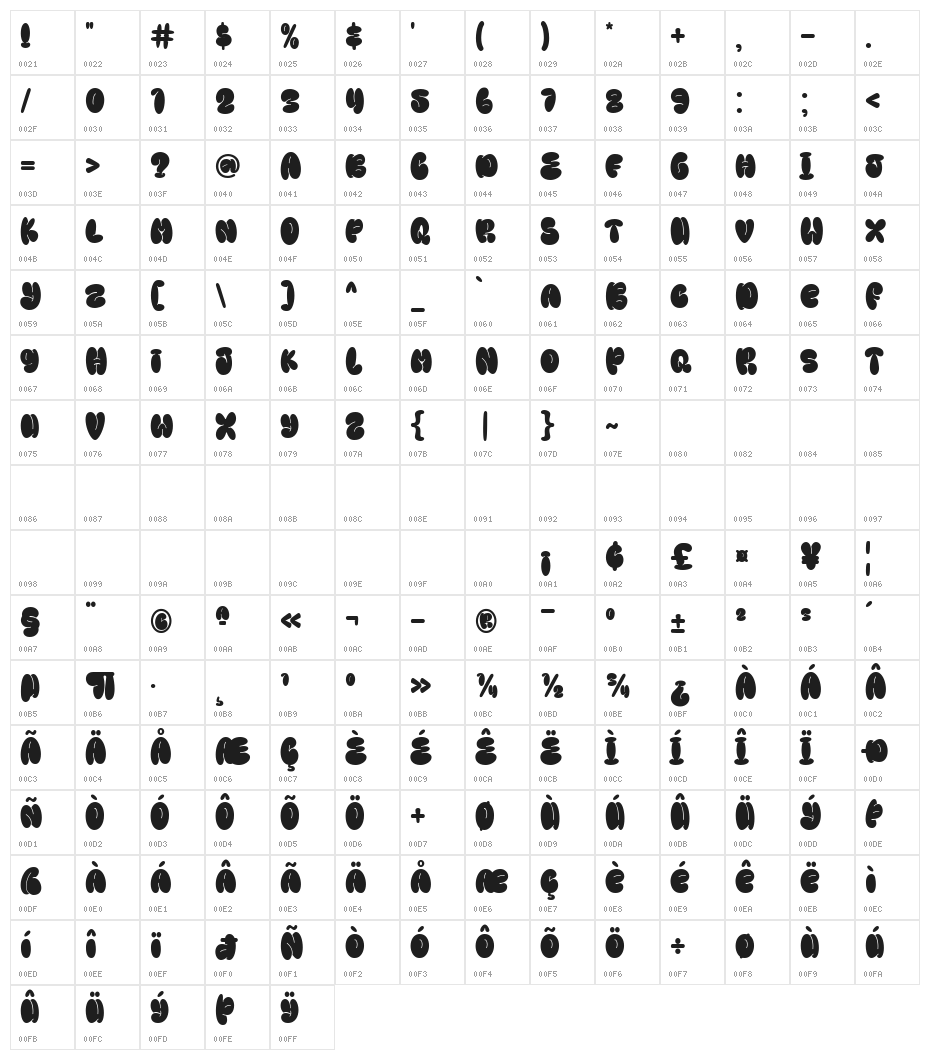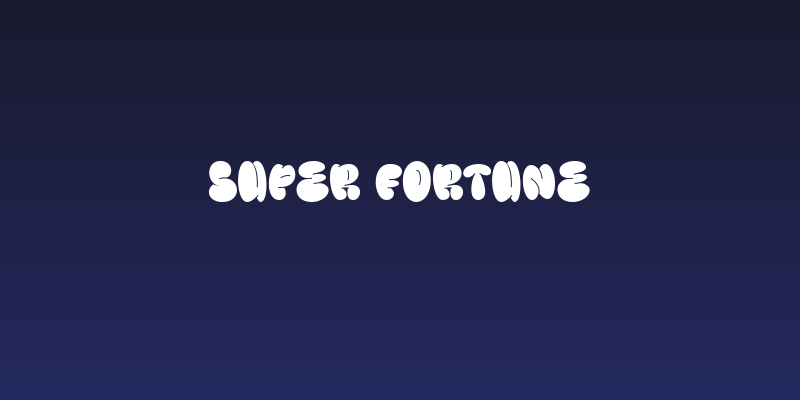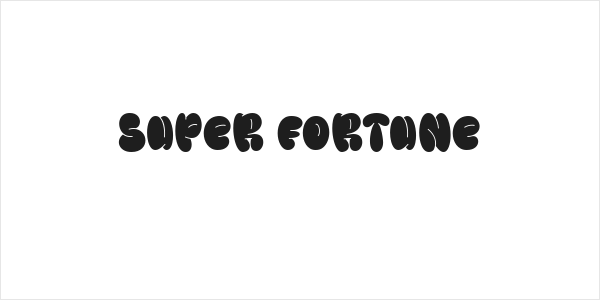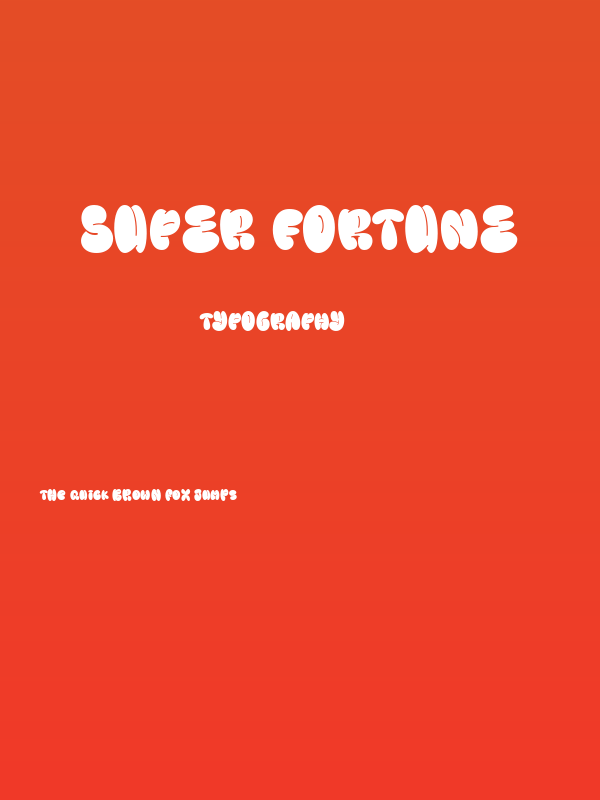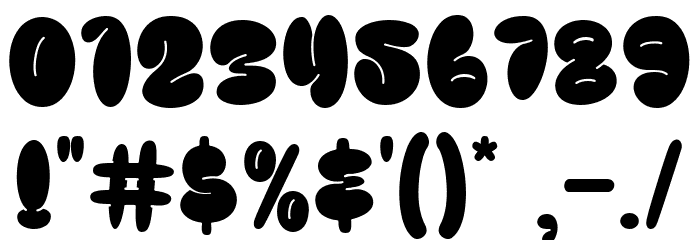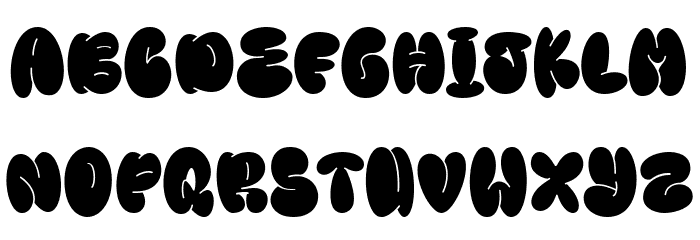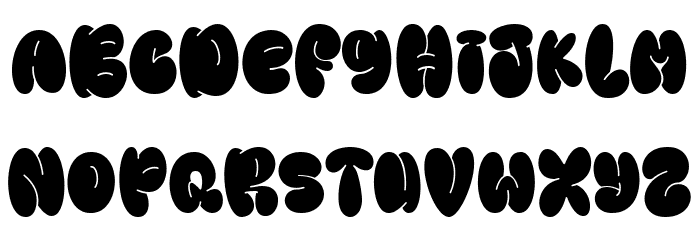
Super Fortune Font
Super Fortune Description
This bold and playful font features thick, rounded characters with a bubbly appearance. The letters are heavily weighted, giving them a strong presence, while the rounded edges add a friendly and approachable feel. The font maintains a consistent thickness throughout, with minimal contrast between strokes. Its whimsical style makes it ideal for projects that require a fun and lively touch. The character spacing is relatively tight, enhancing the compact and cohesive look of the text. This font is perfect for creating eye-catching headlines, posters, or branding materials that aim to convey a sense of joy and creativity.
| Use Case | Headlines, Posters, Branding |
| Proposed Projects | Ideal for children's books, playful branding, event posters, or any project needing a fun and lively touch. |